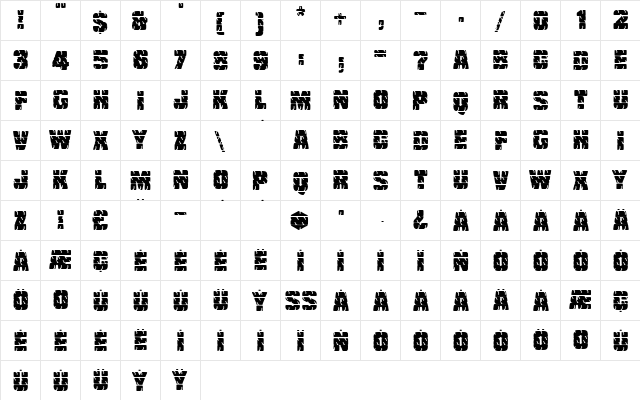
LTTruckz Medium Font Preview
LTTruckz Medium
LTTruckz Medium Font Details
Design Context for LTTruckz Typeface
LTTruckz is a composed and adaptable typeface that performs quietly and consistently across a wide range of design contexts.